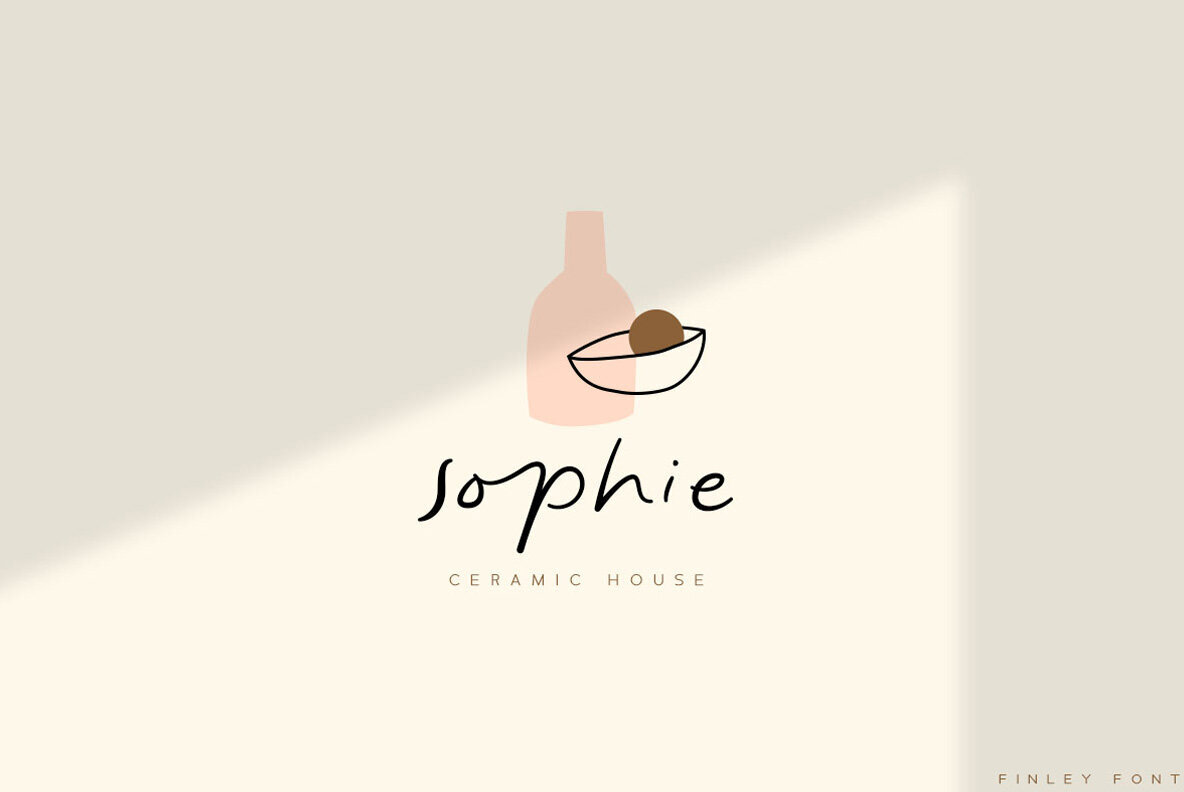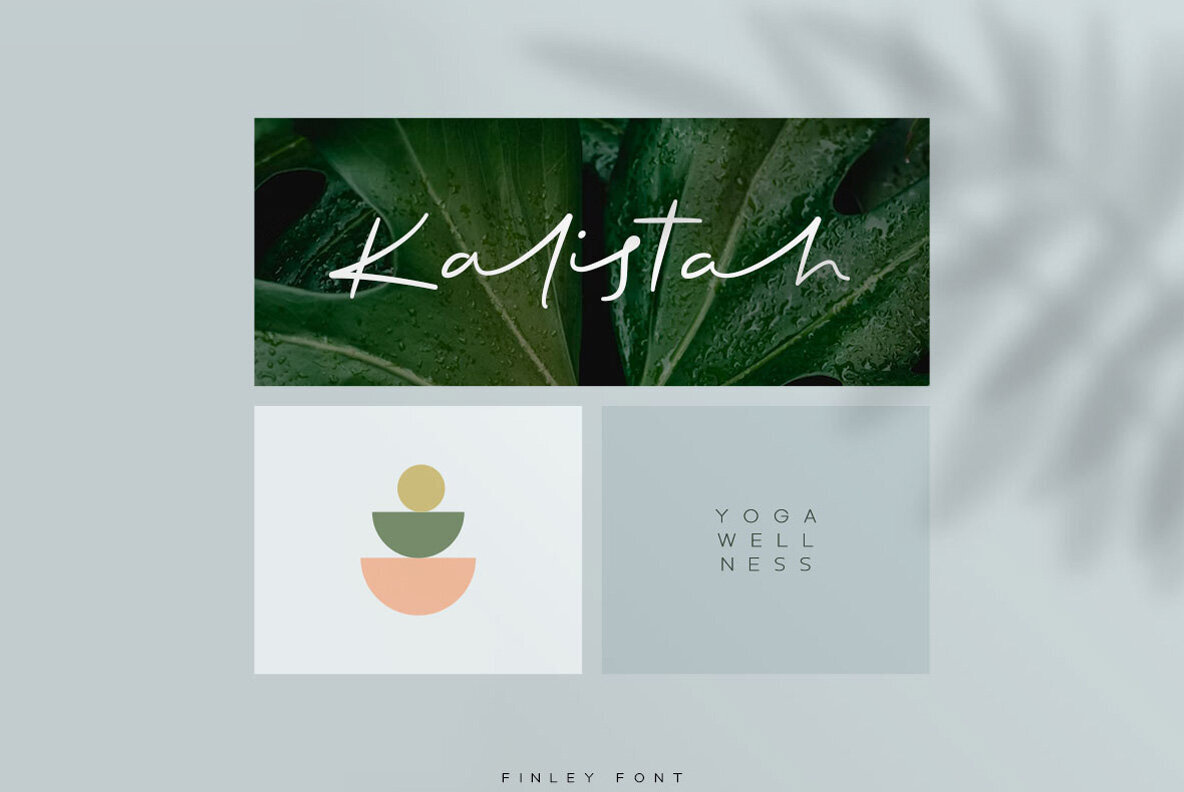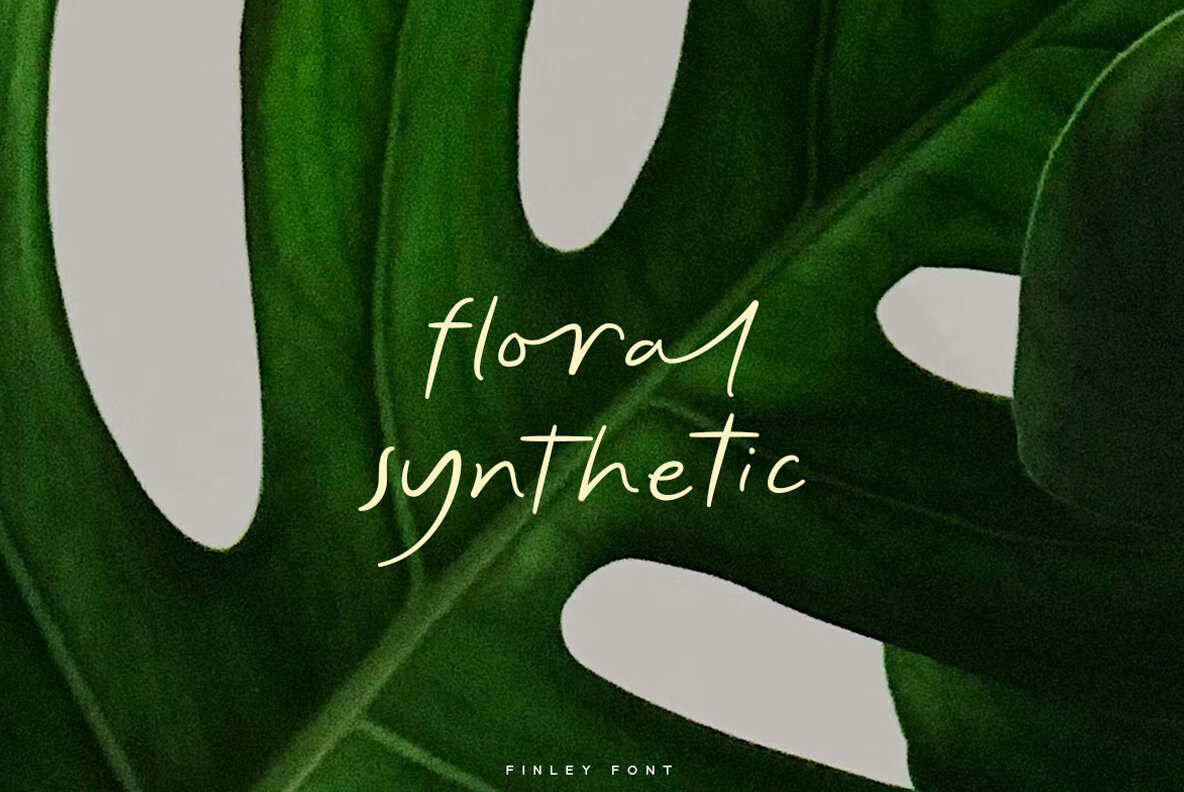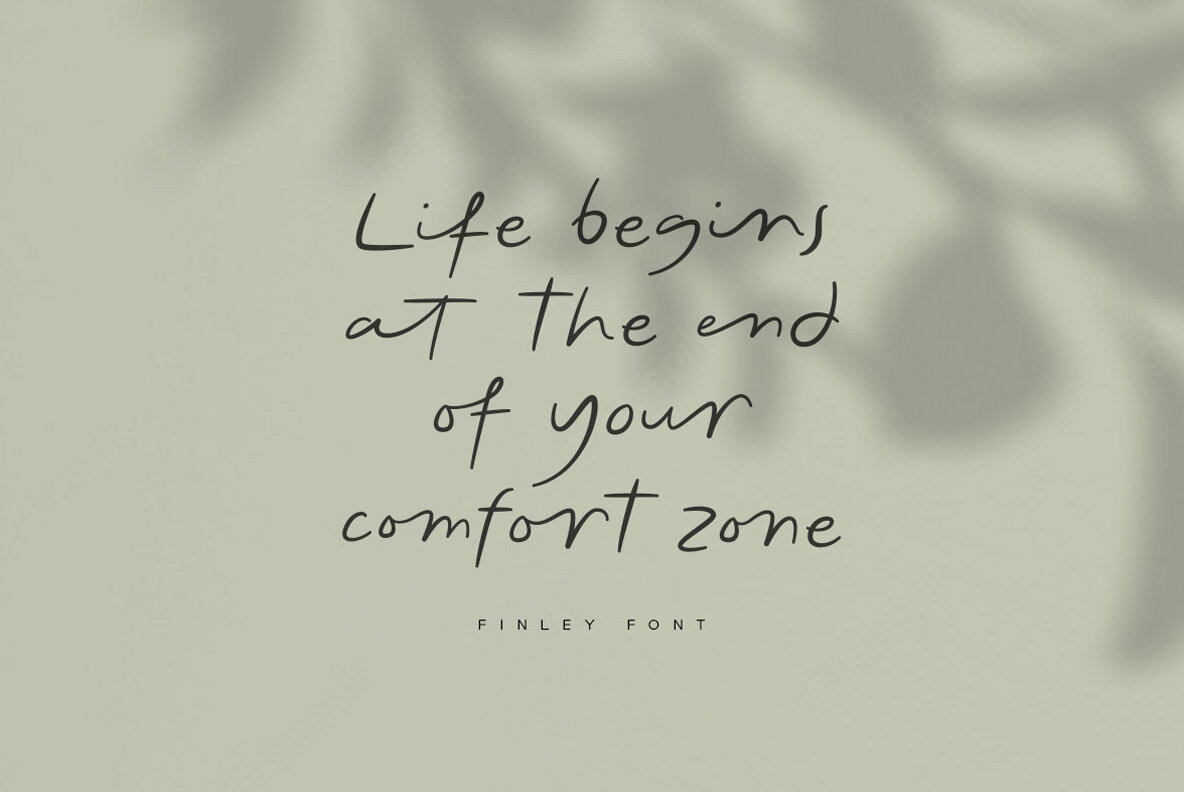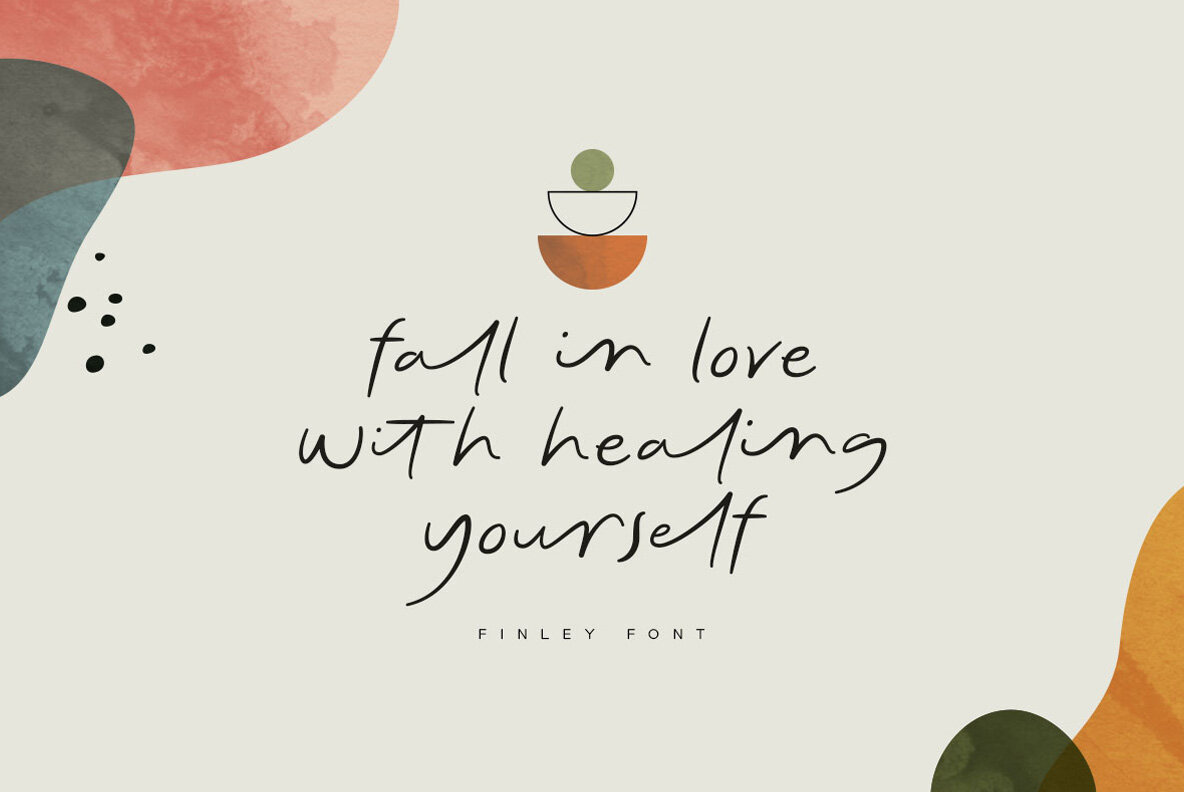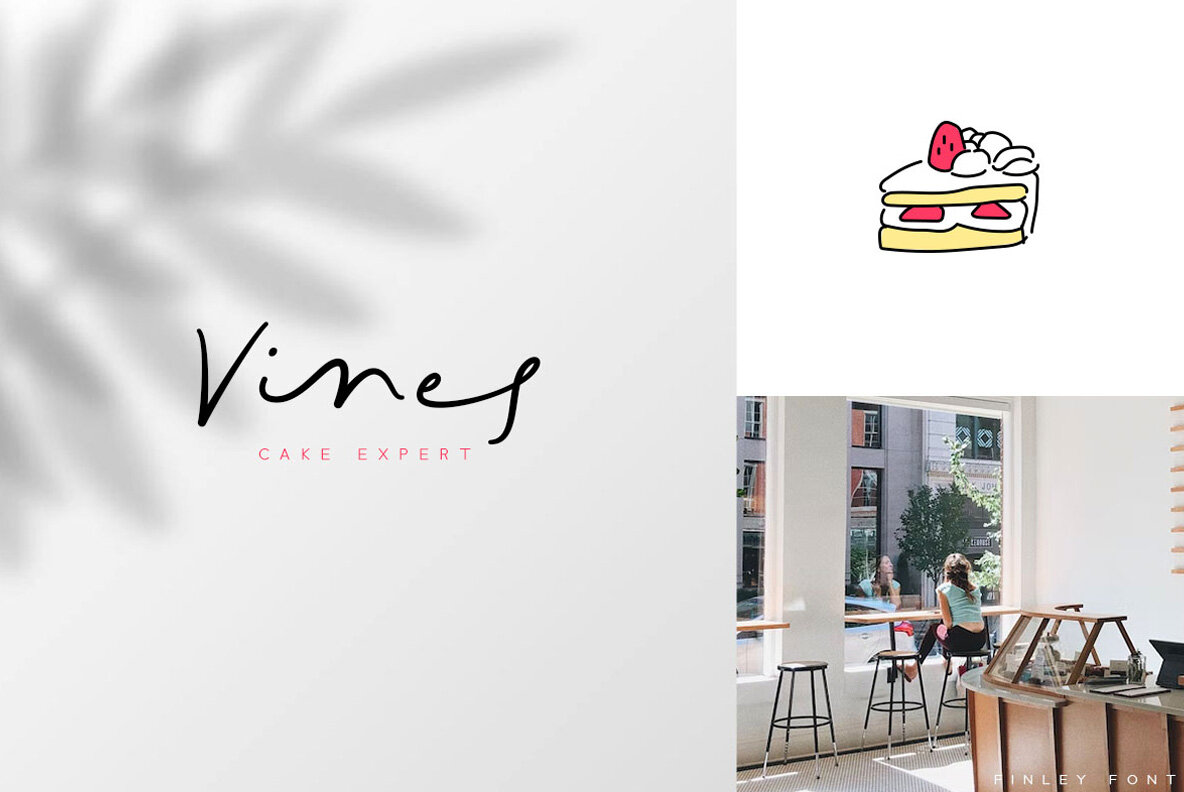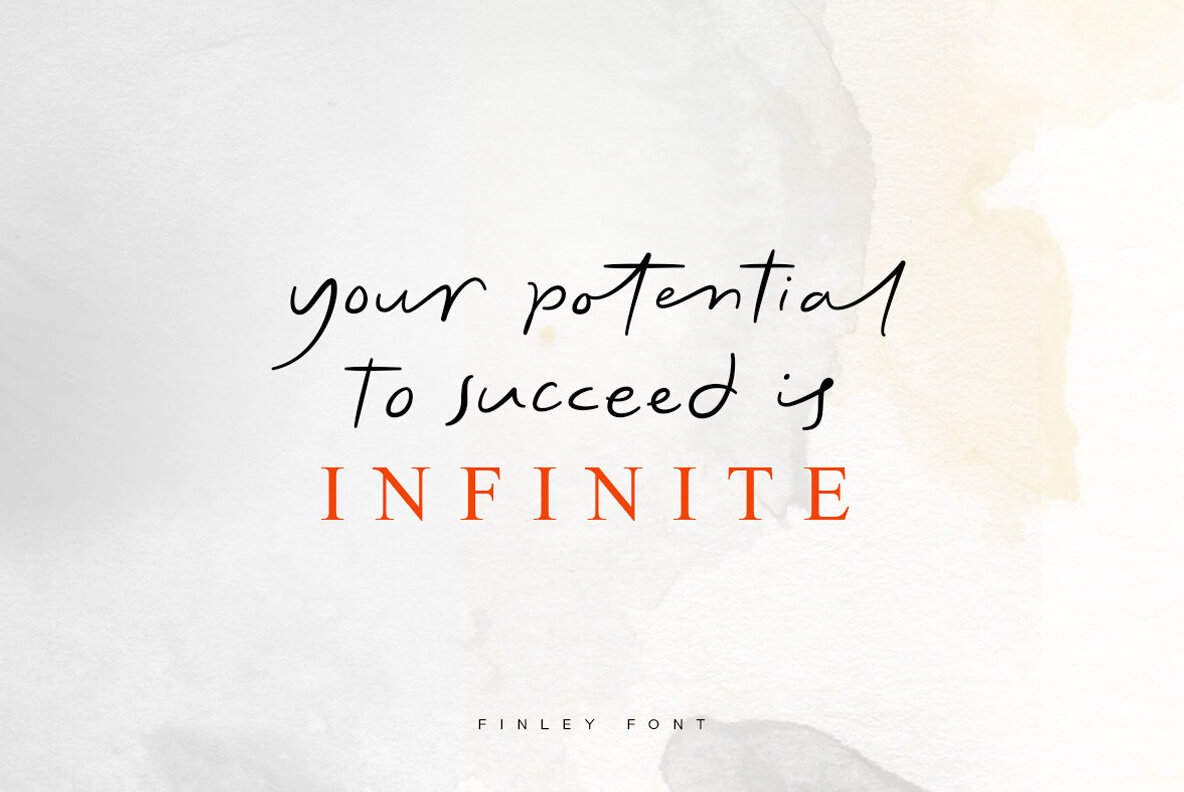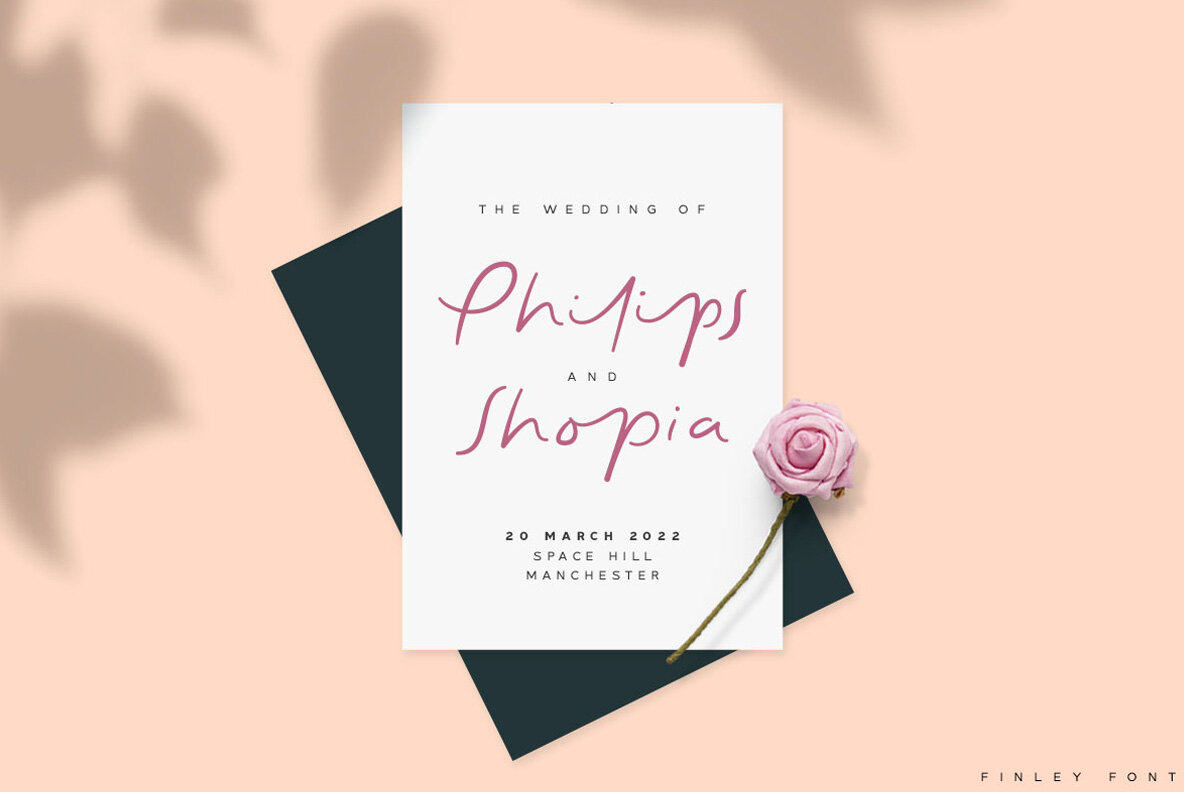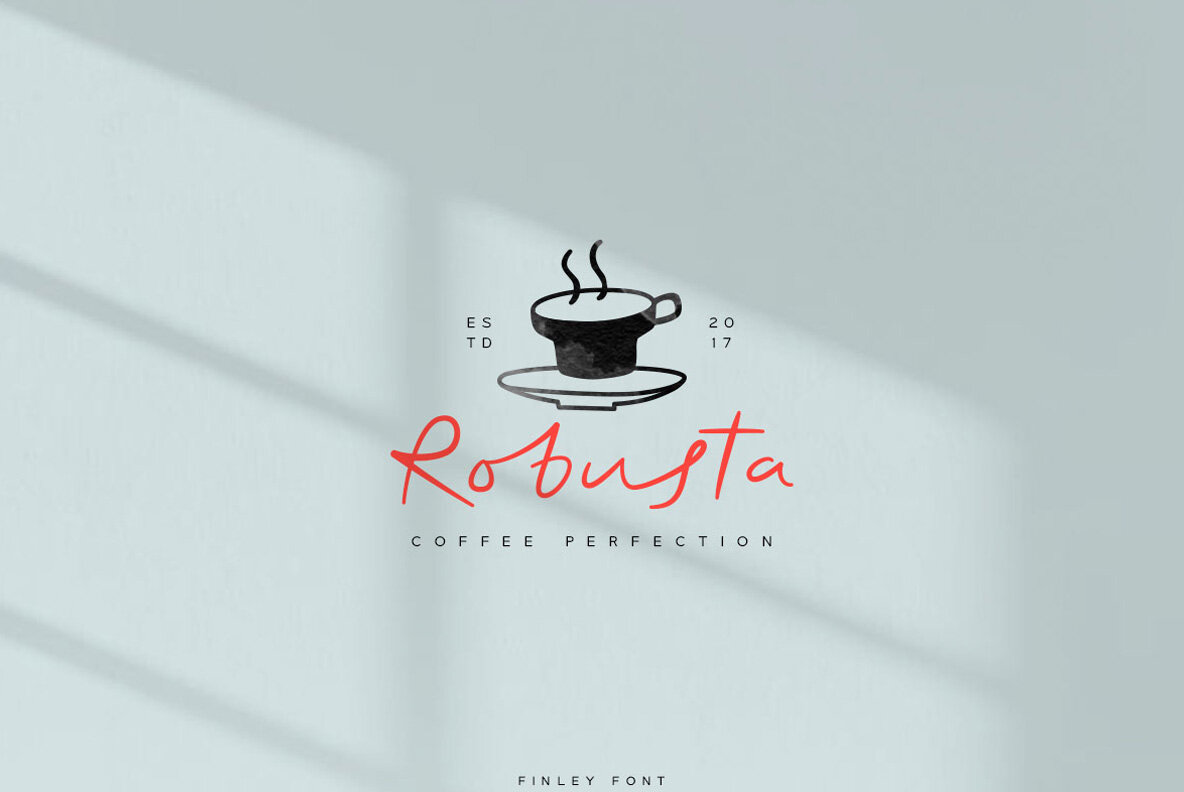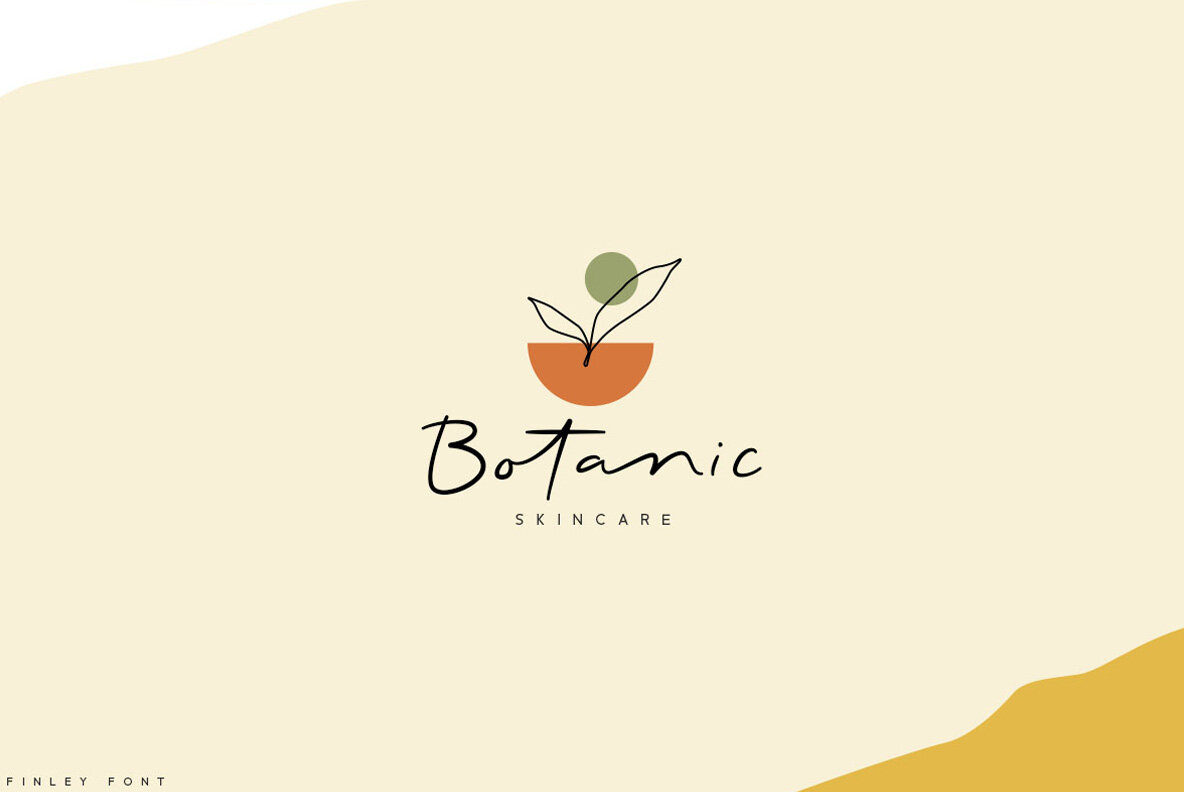
Finley Font
Finley Regular
Embrace the elegance of Finley, a modern script font crafted with meticulous care to enhance the visual appeal of your text. Finley's sophisticated script design brings a contemporary flair, making it suitable for a variety of projects such as photography, watermarks, quotes, blog headers, posters, weddings, and more. This stylish typeface is perfect for branding and lends itself well to fashion, apparel, and stationery design.Finley: Modern Script Font for Versatile Projects